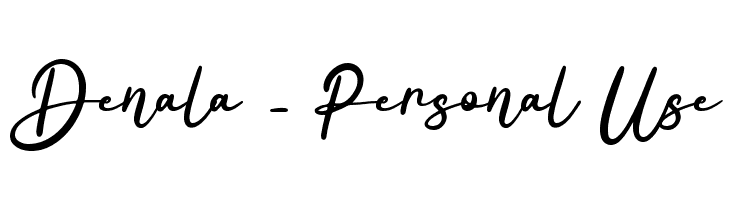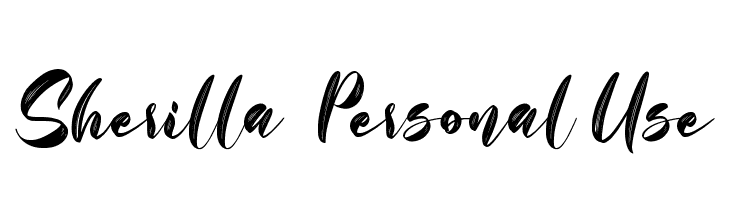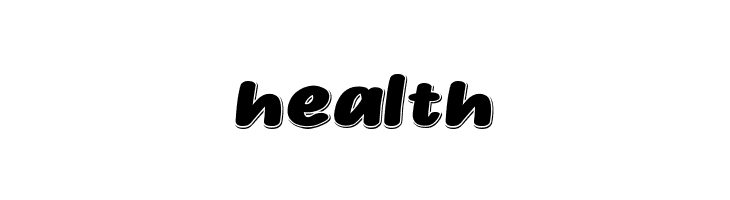
A flowing, cursive script with elegant loops and a handwritten feel.
A dynamic and elegant script font with flowing, cursive letterforms.
A bold, condensed, and italicized font with a dynamic and striking appearance.
A lively, cursive font with a handwritten style and dynamic strokes.
A bold, decorative font with a unique inline design and medium weight.
A modern, outlined font with a geometric and minimalistic design.
A bold, geometric font with a modern and futuristic style.
An elegant, flowing script font with graceful curves and swashes.
A bold, futuristic font with a horizontal line pattern creating a gradient effect.
An elegant, flowing script font with smooth, cursive letterforms.